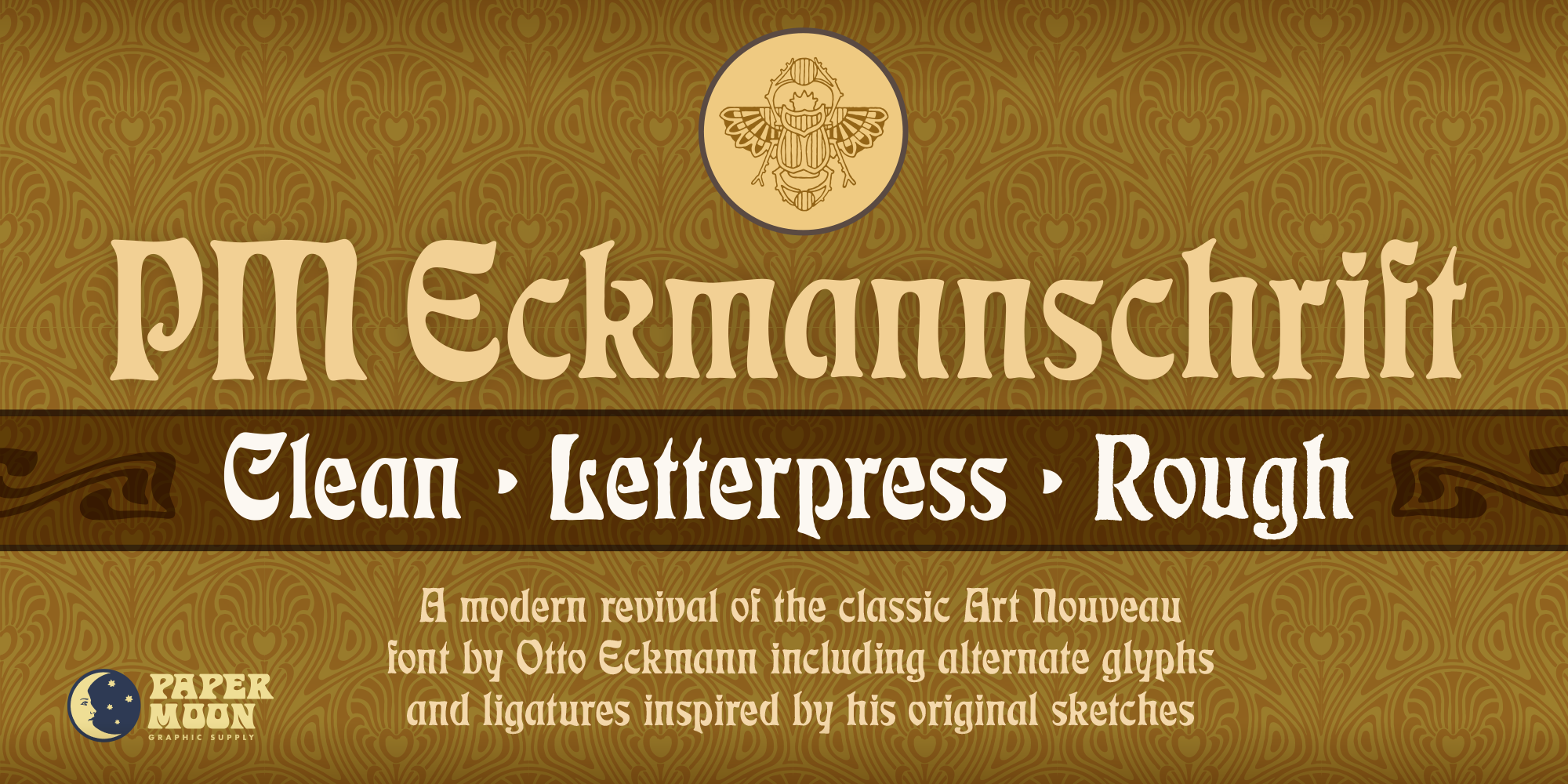
PM Eckmannschrift Font is perfect for Art Nouveau exhibitions, Jugendstil design projects, vintage German cultural centers, Belle Époque-themed events, turn-of-century historical reproductions, decorative arts museums, period architecture firms, and authentic early 20th-century communications.
What makes PM Eckmannschrift Font truly exciting is its exceptional ability to embody the flowing elegance and organic artistry of the Art Nouveau movement through beautifully stylized letterforms that capture the revolutionary design spirit and natural inspiration of Otto Eckmann's groundbreaking typography. This distinguished typeface features distinctive Jugendstil characteristics with organic flourishes that instantly convey artistic sophistication, historical authenticity, and decorative excellence, making it the perfect choice for projects celebrating Art Nouveau heritage, promoting decorative arts, and communicating with audiences who appreciate the revolutionary artistic movement that transformed European design at the turn of the 20th century.
The PM Eckmannschrift Font family includes regular, light, bold, and ornamental variations, complemented by Art Nouveau decorative elements and period-appropriate alternates that enhance the authentic Jugendstil atmosphere, providing designers with comprehensive tools for creating historically accurate brand experiences and decorative communications that resonate with art history enthusiasts and design-conscious audiences seeking authentic period representation.
Art museums and cultural heritage organizations will discover that PM Eckmannschrift Font Free Download delivers the artistic authority and historical authenticity needed to create accurate representations of the Art Nouveau period that educate and inspire contemporary audiences. This versatile typeface excels in both intimate gallery applications and large-scale cultural exhibitions, maintaining its period character while ensuring optimal readability for modern viewers.
The font's artistically crafted construction demonstrates profound respect for Art Nouveau design principles while ensuring contemporary functionality standards. From museum exhibition catalogs to decorative arts festivals, this historically authentic typeface maintains its artistic heritage while providing the versatility needed for comprehensive cultural institution applications. Art organizations appreciate how this font effortlessly communicates artistic sophistication, historical accuracy, and distinguished American appreciation for German Art Nouveau design excellence through superior period-inspired typography.